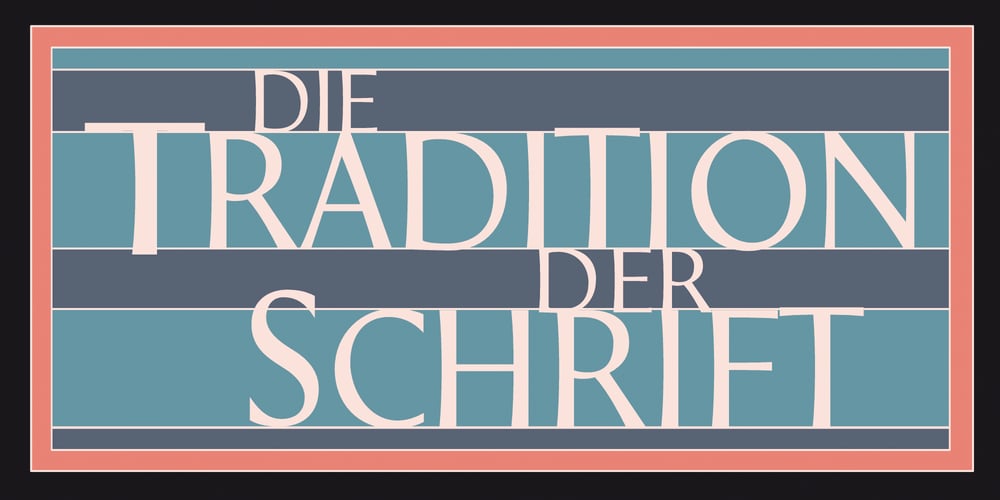
Prolog Hybrid
Prolog Hybrid font
Prolog Hybrid Font Family was designed by Hellmut G. Bomm and published by HGB fonts. Prolog Hybrid contains 8 styles and family package options. Prolog Hybrid is part of an extended font family. Based on Giovanni Francesco Cresci’s font patterns from 1570, the Prolog Hybrid was developed to complement the Prolog family for text size and quantity typesetting. The unusual shape of the letters with a concave spread (like in HGB Santo) does not have a negative impact on readability. The font looks familiar and is pleasant to read and yet independent. Like all Prolog fonts, Prolog Hybrid features both a straight e and a slanted (Venetian) e. Additional variants (table numerals, oldstyle figures and alternatives of Q-P-g-y) are available via OpenType functions. An unusual, good looking and easy to read text font with some brothers and sisters for appropriate accolades.